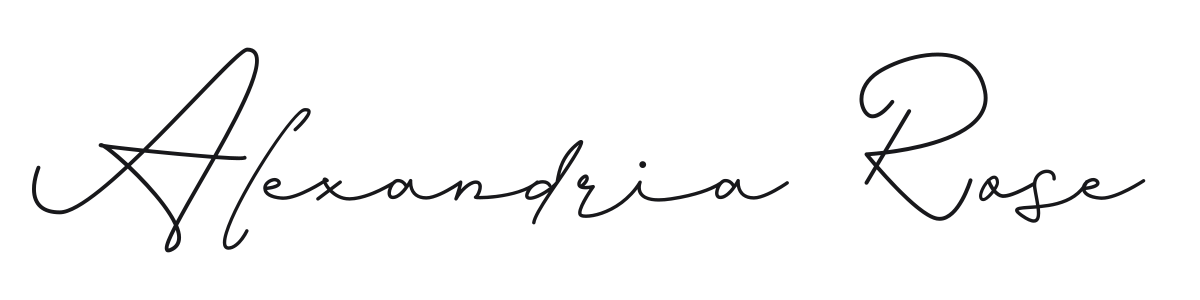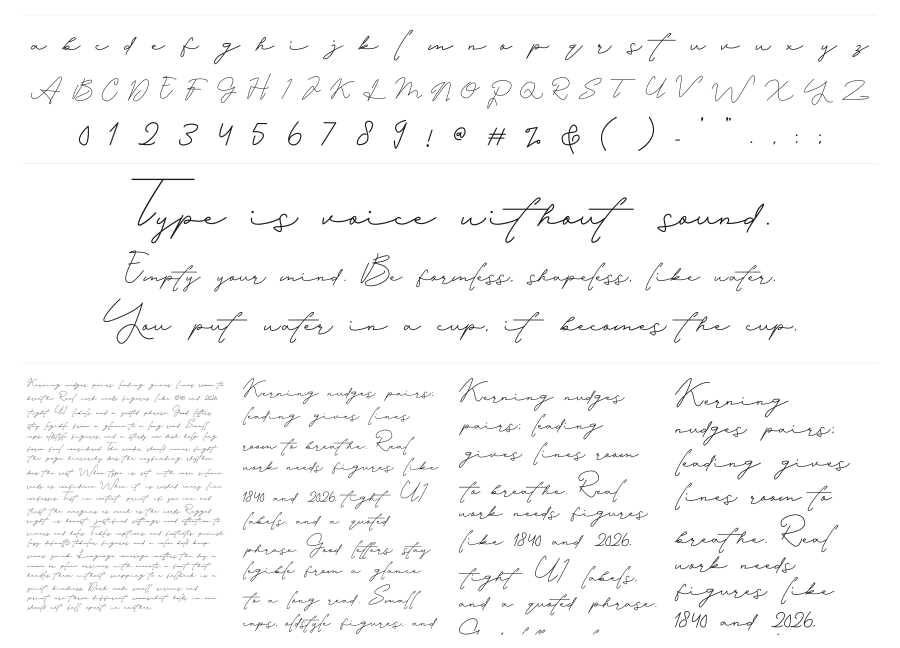
Alexandria Rose
Alexandria Rose is a thin, flowing cursive script that mimics the ease of a natural handwritten signature. Its connected strokes and long sweeping terminals give it a light, romantic quality without feeling overly formal. It works best at large sizes where the fine linework and fluid connections can breathe.